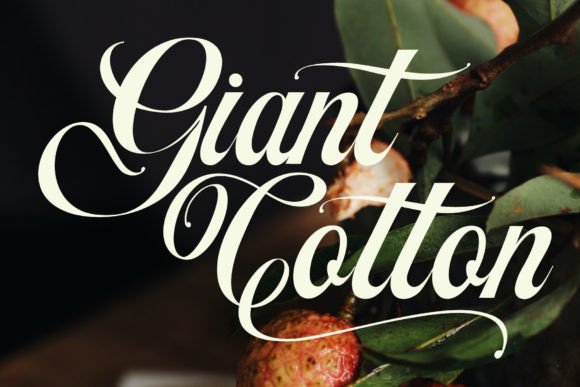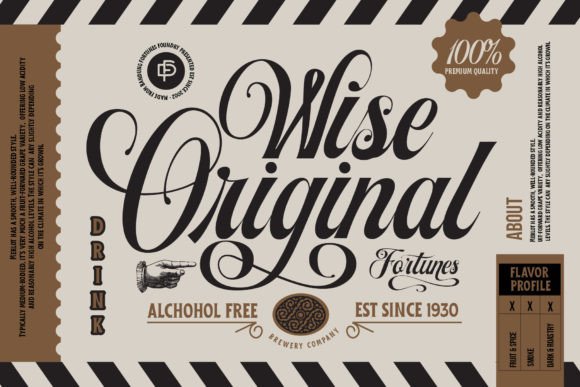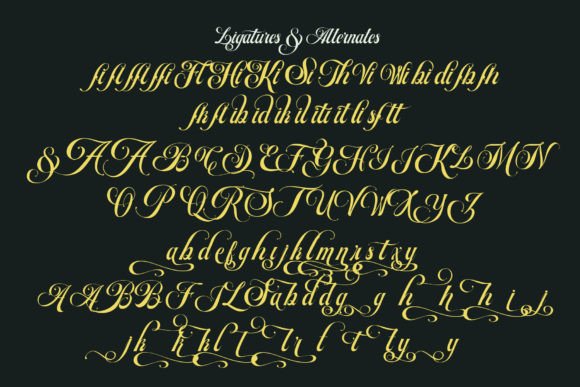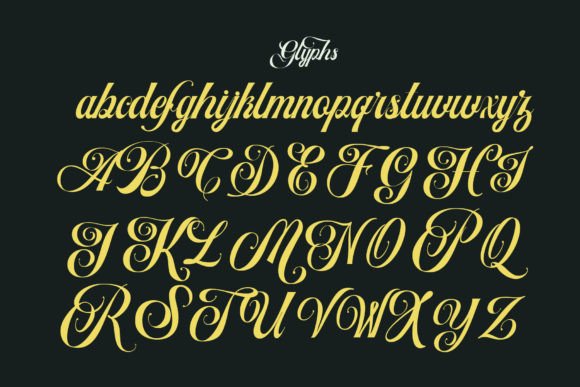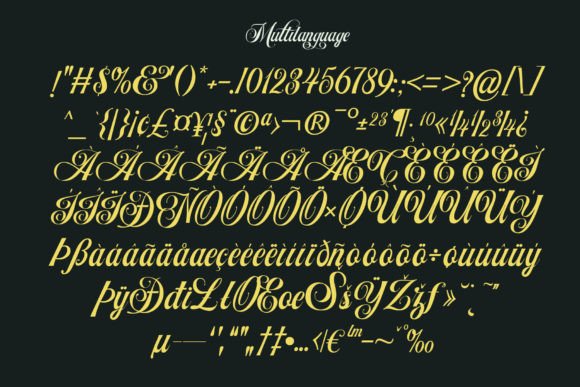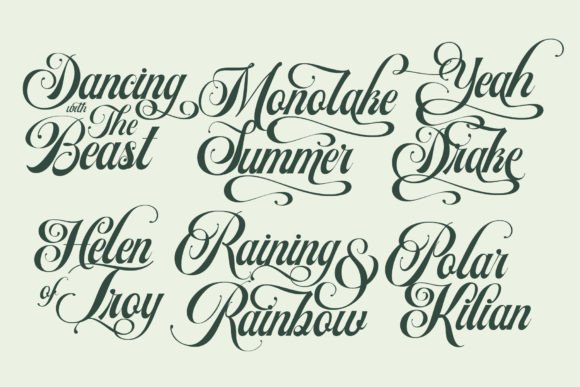
The Timeless Charm of Artheria Font
Have you ever stumbled upon an old photograph or a vintage advertisement and been instantly transported back in time? That’s the magic of classic design. As a designer, I’ve often found myself searching for the perfect font to capture that nostalgic feel, and that’s where the Artheria Font comes in.
Artheria Font is a beautiful script font with a classic vintage style that’s perfect for retro-themed designs. But its versatility doesn’t stop there – it can also be used to add a touch of elegance to modern designs. With its elegant curves and refined lines, Artheria Font is a valuable tool for any designer looking to add a timeless touch to their work.
Whether you’re working on a vintage-inspired project or just want to add some classic charm to your design, Artheria Font is definitely worth exploring. Its unique style and versatility make it a valuable addition to any designer’s toolkit.
Artheria Font Key Features
- Font Family: Artheria is a script font family designed to evoke a sense of elegance and sophistication.
- Size and Resolution: The font family includes a range of weights and styles, from 100 to 900, with each weight available in 6 different font sizes (12pt, 14pt, 18pt, 24pt, 36pt, and 48pt) at 300 DPI (dots per inch) resolution.
- Unique Characteristics: Artheria features a unique blend of modern and vintage elements, with intricate details and subtle flair, making it perfect for designs that require a touch of luxury and sophistication.
- Language Support: The font family supports a wide range of languages, including English, Spanish, French, German, Italian, Portuguese, Dutch, Russian, Chinese, Japanese, and many more, making it an ideal choice for global brands and designers.
- Kerning and Ligatures: Artheria includes advanced kerning and ligature pairs to ensure seamless integration of letters and improved readability, even in complex text settings.
Designer Review: Artheria Font
I recently had the chance to work with the Artheria font, and I wanted to share my honest thoughts on its performance.
- Unique and elegant design: Artheria has a distinctive, whimsical feel that can add a touch of sophistication to any design project.
- Legibility: The font is clear and easy to read, even at smaller font sizes, making it suitable for a wide range of applications.
- Compatibility: I found Artheria to be highly compatible with various operating systems and software, which is a plus for designers who need to ensure seamless integration.
- Limited font weights: Artheria only comes in a few font weights, which may limit its versatility in certain design projects.
- Not ideal for large body text: While Artheria is great for headlines and smaller text, it may not be the best choice for large blocks of text due to its relatively narrow width.
Overall, I think Artheria is a great addition to any designer’s toolkit, but it’s essential to consider its limitations when choosing the right font for a project.
Getting the Most Out of Artheria Font
For the best results, use Artheria Font in combination with bold or italic styles to add emphasis. You can also adjust the font size to create visual hierarchy in your design.
Artheria Font is ideal for use in branding, logos, and typography-based designs. It’s also a great choice for creating eye-catching headings and titles.